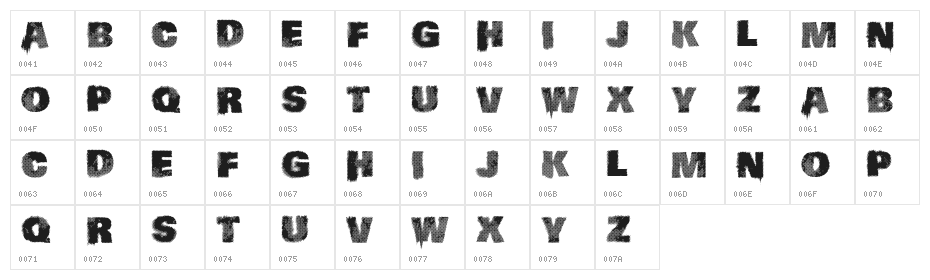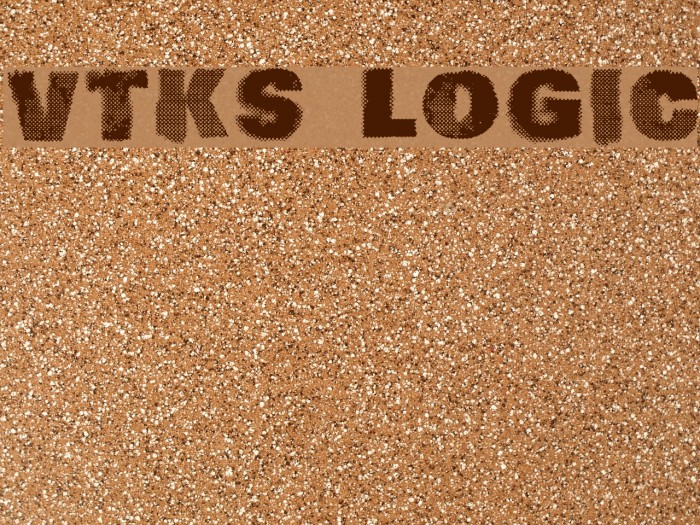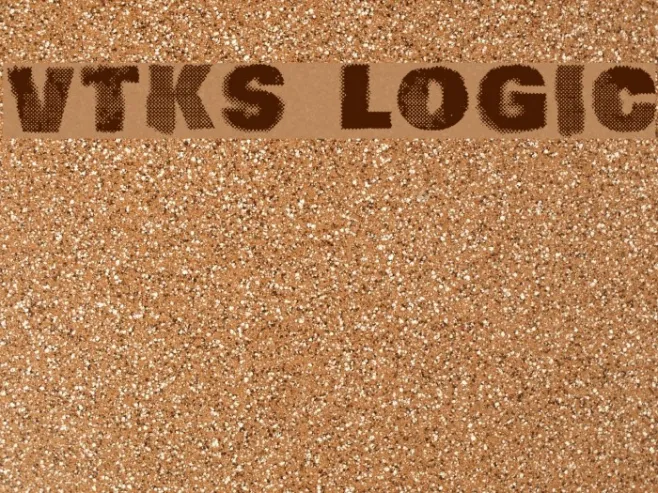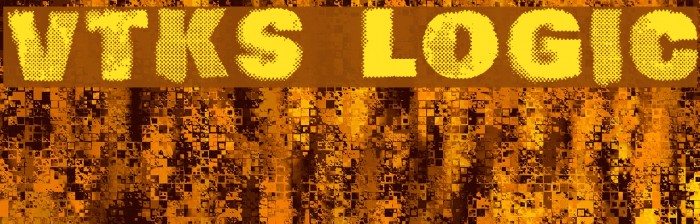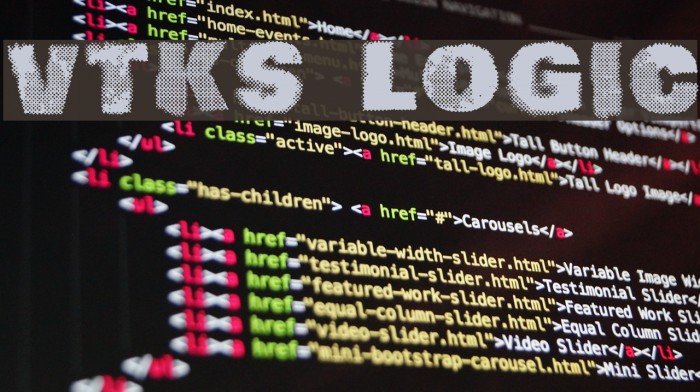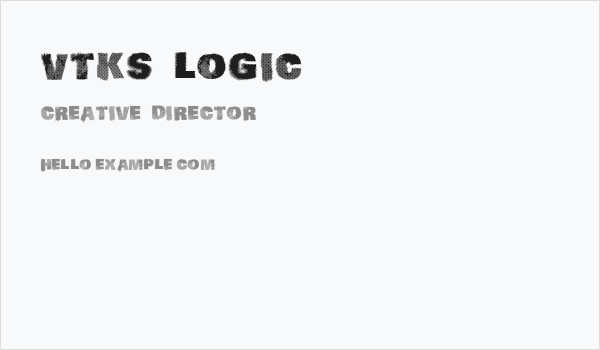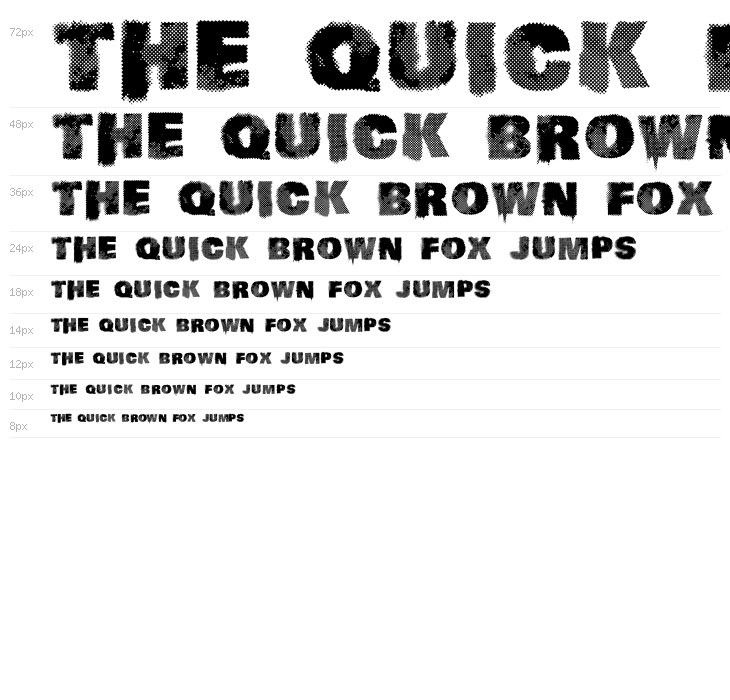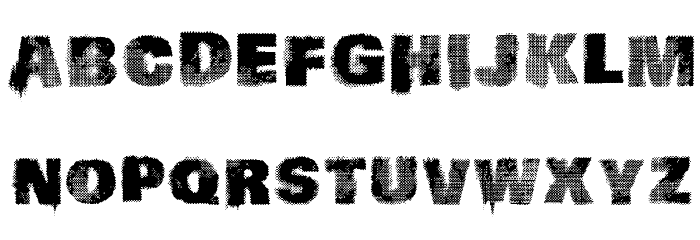
vtks logic Font
vtks logic Description
This font features a bold and distressed style, characterized by a halftone pattern that gives it a gritty, textured appearance. The letters are uppercase and display a strong, impactful presence, making them suitable for attention-grabbing designs. The distressed effect adds a sense of ruggedness and vintage appeal, reminiscent of old print techniques. The font's unique texture and boldness make it ideal for projects that require a strong visual impact, such as posters, album covers, or branding materials that aim to convey a sense of edginess or rebellion.
| Proposed Projects | Ideal for posters, album covers, branding materials, and any design needing a gritty, vintage appeal. |